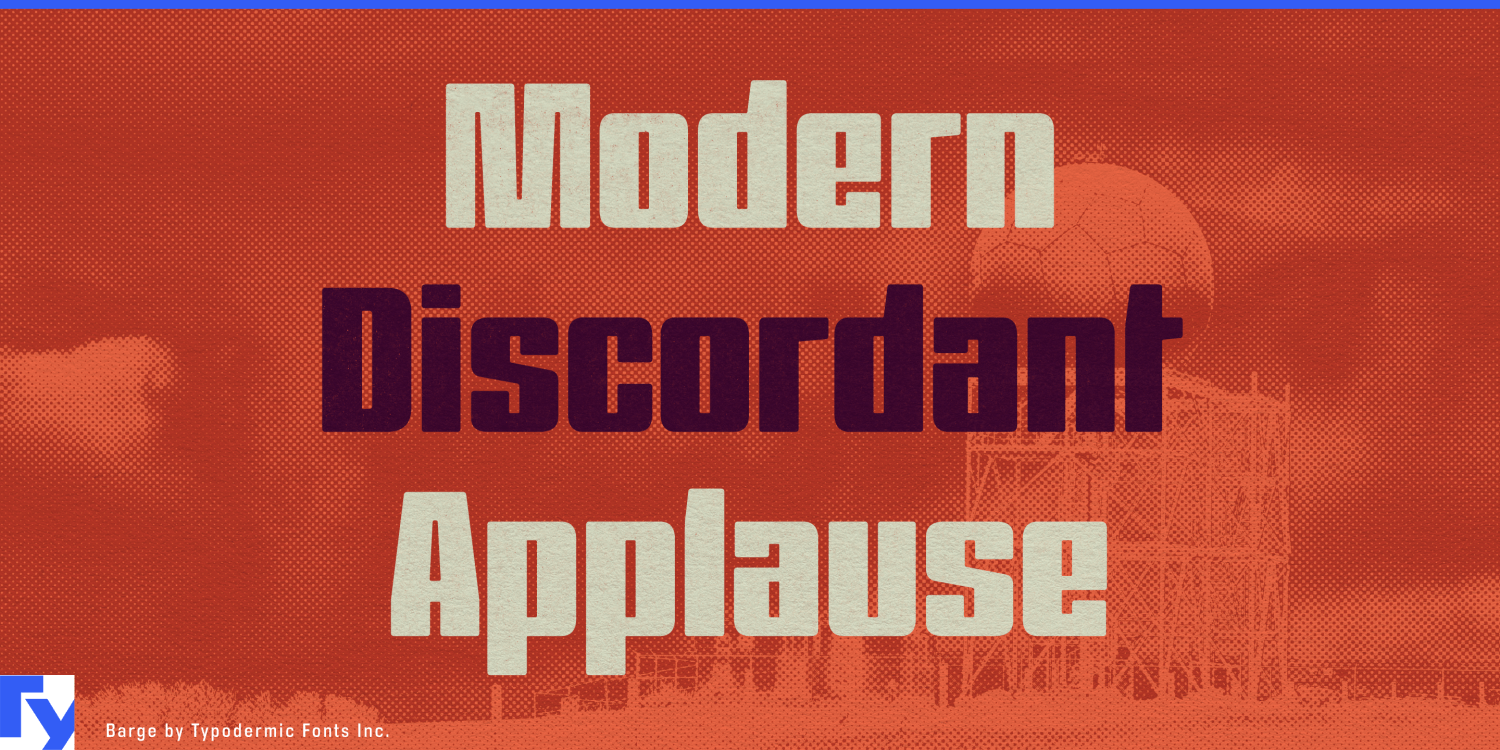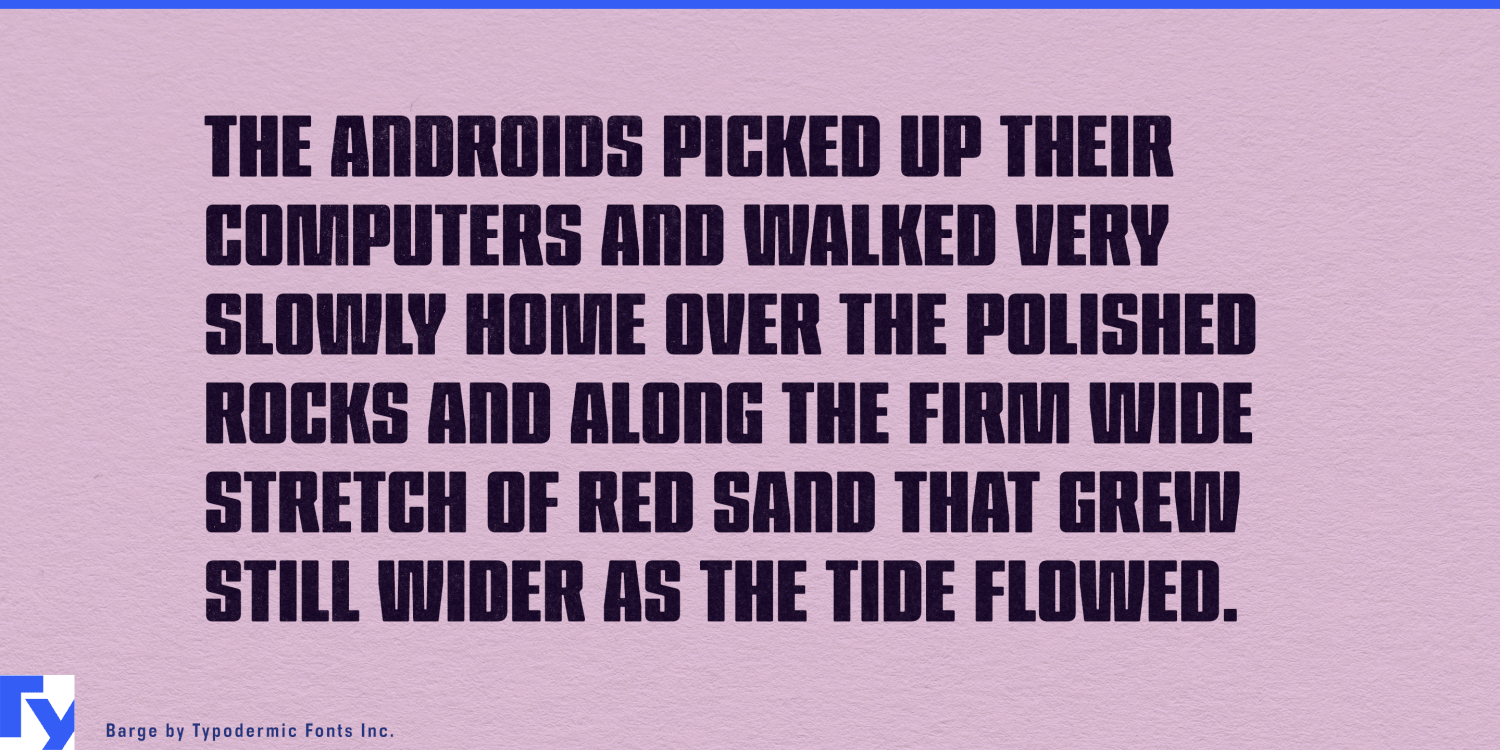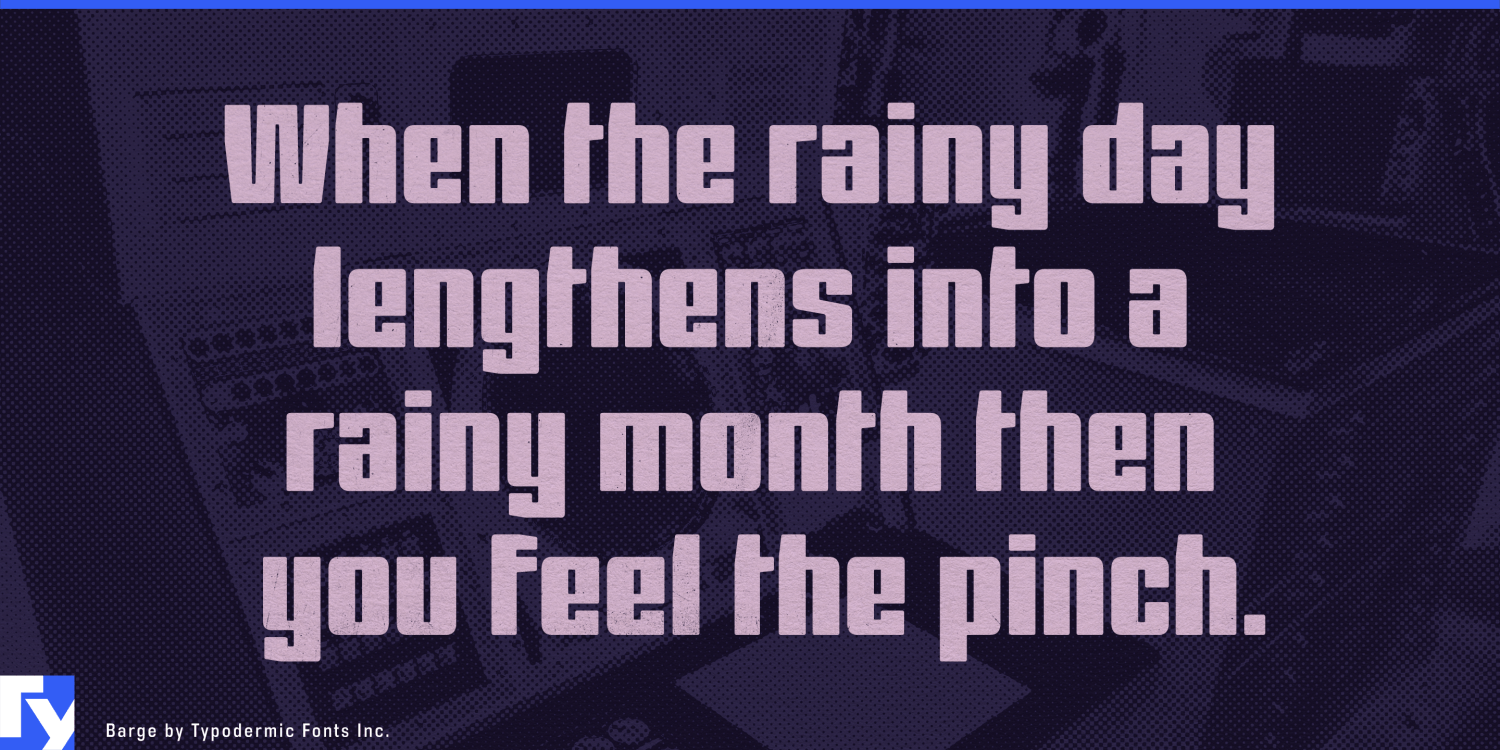
About Barge
Attention, titans of industry and architects of greatness! Prepare to witness the typographic equivalent of a skyscraper—Barge has docked in the harbor of design, and it’s here to dominate the skyline of your projects. Barge’s chamfered…